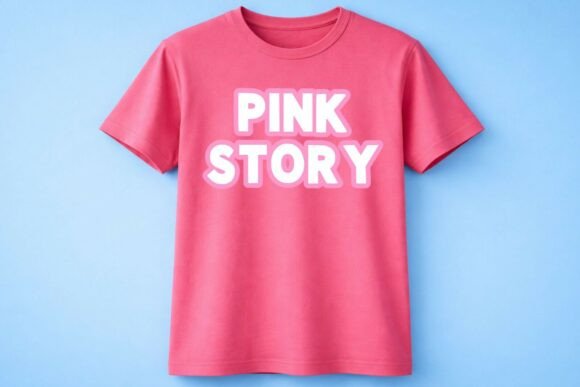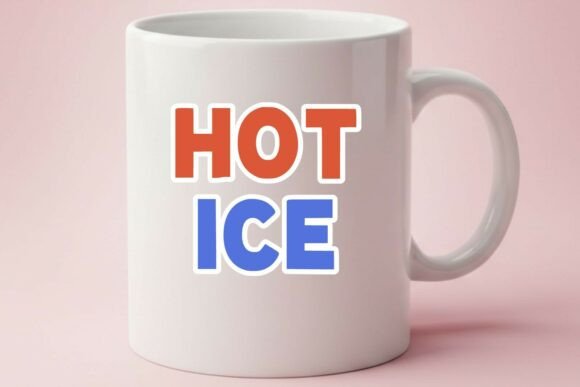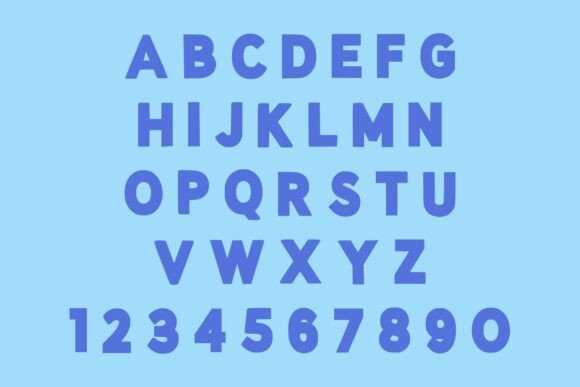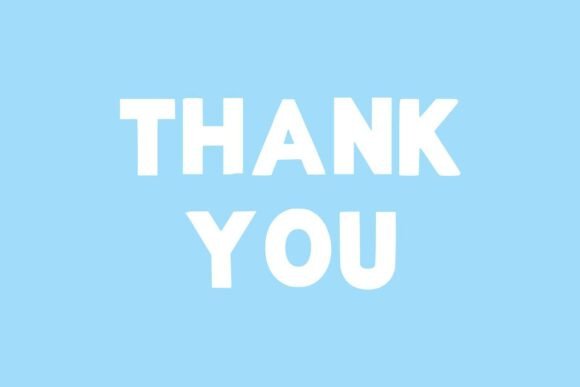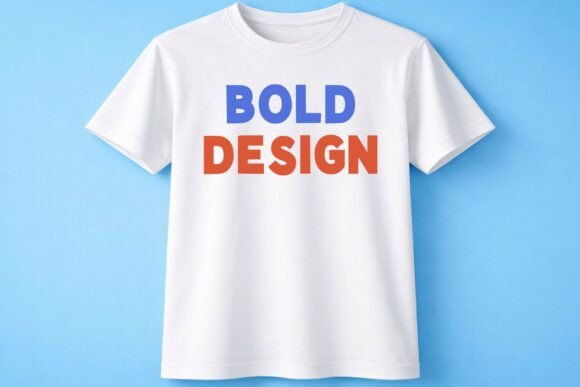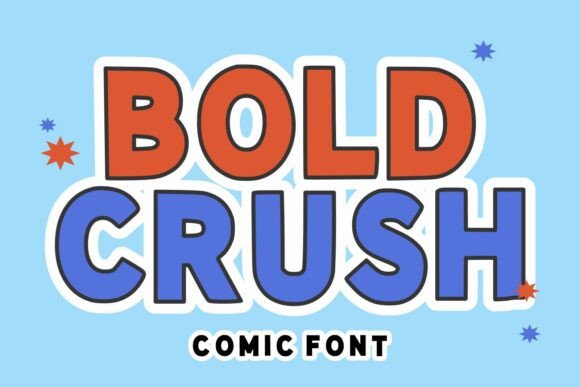
Introducing Bold Crush Font: The Ultimate Comic-Style Display Font
Are you looking for a font that can add a playful and energetic touch to your designs? Look no further than Bold Crush Font! This fun and vibrant comic-style display font is perfect for designers and crafters who want to create eye-catching and engaging projects. With its thick bold letters and lively personality, Bold Crush is sure to grab attention and bring a smile to your audience’s faces.
What is Bold Crush Font?
Bold Crush Font is a carefully crafted comic-style display font that is designed to bring a sense of fun and excitement to your designs. Its thick bold letters and playful curves make it perfect for creating eye-catching headlines, titles, and captions. Whether you’re working on a comic book, poster, kids’ design, sticker, social media graphic, t-shirt print, or branding project, Bold Crush Font is the perfect choice.
Key Features of Bold Crush Font
- Thick Bold Letters: Bold Crush Font features thick bold letters that are perfect for creating eye-catching headlines and titles.
- Playful Personality: This font has a lively and cheerful vibe that is sure to bring a smile to your audience’s faces.
- Comic-Style Design: Bold Crush Font is designed in a comic-style that is perfect for comics, posters, kids’ designs, and other projects that require a fun and energetic look.
- Versatile: This font is versatile and can be used for a wide range of projects, including social media graphics, t-shirt prints, and branding.
Bold Crush Font is perfect for designers and crafters who want to add a playful and energetic touch to their projects. Whether you’re creating a comic book, designing a poster, or crafting a social media graphic, this font is sure to bring a sense of fun and excitement to your work. With its easy-to-read bold letters and lively personality, Bold Crush Font is the perfect choice for projects that require a colorful and expressive comic look.
Use Cases for Bold Crush Font
- Comics: Bold Crush Font is perfect for comic books, graphic novels, and other comic-style projects.
- Posters: Use Bold Crush Font to create eye-catching posters for events, promotions, and other marketing campaigns.
- Kids Designs: This font is perfect for kids’ designs, including children’s books, educational materials, and kids’ clothing.
- Stickers: Bold Crush Font is great for creating fun and colorful stickers for kids and adults alike.
- Social Media Graphics: Use Bold Crush Font to create engaging social media graphics that are sure to grab attention.
- T-Shirt Prints: This font is perfect for creating fun and colorful t-shirt prints for kids and adults.
- Branding: Bold Crush Font can be used for branding projects that require a playful and energetic look.
Why Choose Bold Crush Font?
There are many reasons why you should choose Bold Crush Font for your next project. Here are just a few:
- Unique and Eye-Catching: Bold Crush Font is a unique and eye-catching font that is sure to grab attention.
- Easy to Read: This font is easy to read, even at small sizes, making it perfect for a wide range of projects.
- Versatile: Bold Crush Font is versatile and can be used for a wide range of projects.
- Fun and Energetic: This font has a fun and energetic personality that is sure to bring a smile to your audience’s faces.
In conclusion, Bold Crush Font is a fun and energetic comic-style display font that is perfect for designers and crafters who want to add a playful and energetic touch to their projects. With its thick bold letters, lively personality, and versatile design, Bold Crush Font is sure to grab attention and bring a sense of fun and excitement to your work. Whether you’re working on a comic book, poster, kids’ design, sticker, social media graphic, t-shirt print, or branding project, Bold Crush Font is the perfect choice.